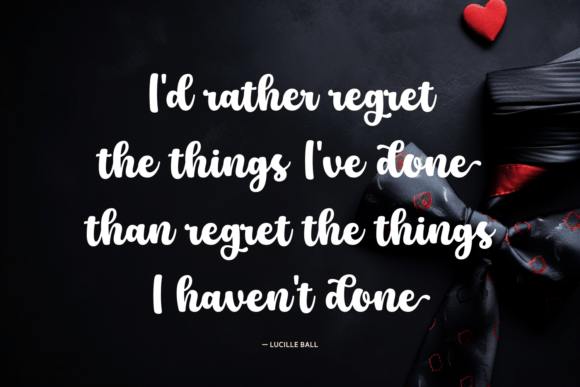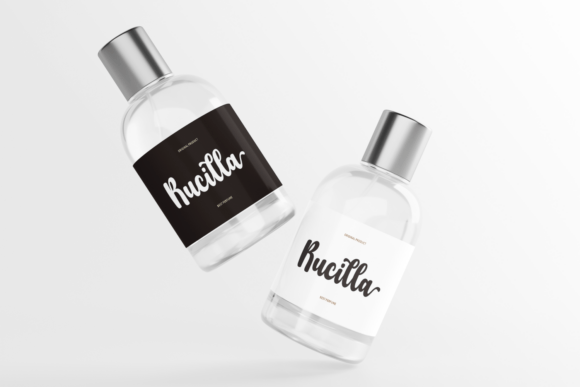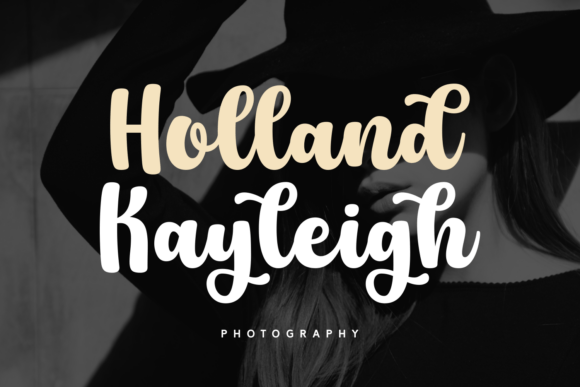
Unleash Your Creativity with Buddy Daddies Font
Have you ever stared at a blank canvas, trying to find the perfect font to bring your design to life? You’ve scrolled through font libraries, searching for that special something that screams “you.” For designers, finding the right font can be a daunting task, but what if I told you there’s a font that can make your designs stand out from the crowd?
Meet Buddy Daddies Font, a bold and modern calligraphy script font that’s sure to capture the attention of your audience. Its smooth curves and thick strokes make it perfect for playful and approachable designs, such as branding, posters, and greeting cards. With Buddy Daddies Font, you can add a personal touch to your projects with a touch of boldness, making it an ideal choice for designers who want to create memorable designs.
Buddy Daddies Font is a valuable addition to any designer’s toolkit, offering a unique and versatile font that can be used for a variety of projects, from logos to social media graphics. Whether you’re a seasoned pro or just starting out, this font is sure to become your new best friend.
Buddy Daddies Font Key Features
- Unique Characteristics: The font features a unique blend of Japanese and Western typography, creating a distinctive and eye-catching design.
- Language Support: The font supports multiple languages, including Japanese, English, and many others.
- Font Style: The font comes in multiple styles, including bold, italic, and regular, allowing for versatility in design applications.
Buddy Daddies Font Review
I recently had the chance to work with the Buddy Daddies font, and I must say it’s an interesting choice. ✨ One thing that stands out is its unique and quirky design. The font is perfect for those who want to add a touch of whimsy to their projects. The rounded edges and playful feel make it ideal for children’s books, advertising, or any other project that requires a lighthearted tone.
Another aspect I appreciate is the variety of styles offered within the font. It includes bold, italic, and bold-italic versions, giving designers more flexibility when it comes to formatting text. ✨ The font also supports a wide range of languages, making it a great choice for global projects.
While the Buddy Daddies font has its strengths, there are some limitations to consider. ⚠️ One major drawback is its limited legibility at smaller font sizes. The rounded edges and quirky design can become distracting when the text is too small, which may not be ideal for certain projects.
Overall, I think the Buddy Daddies font is a great choice for designers who want to add a touch of personality to their work. While it may not be suitable for all projects, it’s a versatile font that can be used in a variety of contexts. Just be mindful of its limitations and use it in moderation.
- Unique and quirky design
- Variety of styles (bold, italic, bold-italic)
- Supports multiple languages
- May not be legible at smaller font sizes
Buddy Daddies Font: A Practical Application Guide
Tips for Getting the Most Out of the Buddy Daddies Font
Use the Buddy Daddies Font in bold, playful designs to add a touch of personality.
Use the font in combination with other bold fonts to create a cohesive design.
The Buddy Daddies Font is perfect for:
– Blog posts
– Flyers and brochures
Alternatives to Buddy Daddies Font for Designers
Great Vibes Font is a modern, elegant script font that is perfect for creating a sophisticated and luxurious feel in your designs. It is ideal for use in branding, advertising, and editorial design projects. Great Vibes Font is more cursive and flowing compared to Buddy Daddies Font, which gives it a more refined and polished look.
Pacifico Font is a beautiful, handwritten font that is great for creating a relaxed and casual atmosphere in your designs. It is perfect for use in social media graphics, flyers, and posters. Pacifico Font is more casual and laid-back compared to Buddy Daddies Font, which makes it a great alternative for designers who want to create a more laid-back vibe.
Q: Is the Buddy Daddies Font available in bold and italic styles?
Yes, the Buddy Daddies Font includes bold and italic styles, allowing you to add depth and emphasis to your designs. You can access these styles by selecting the corresponding font weights in your design software.